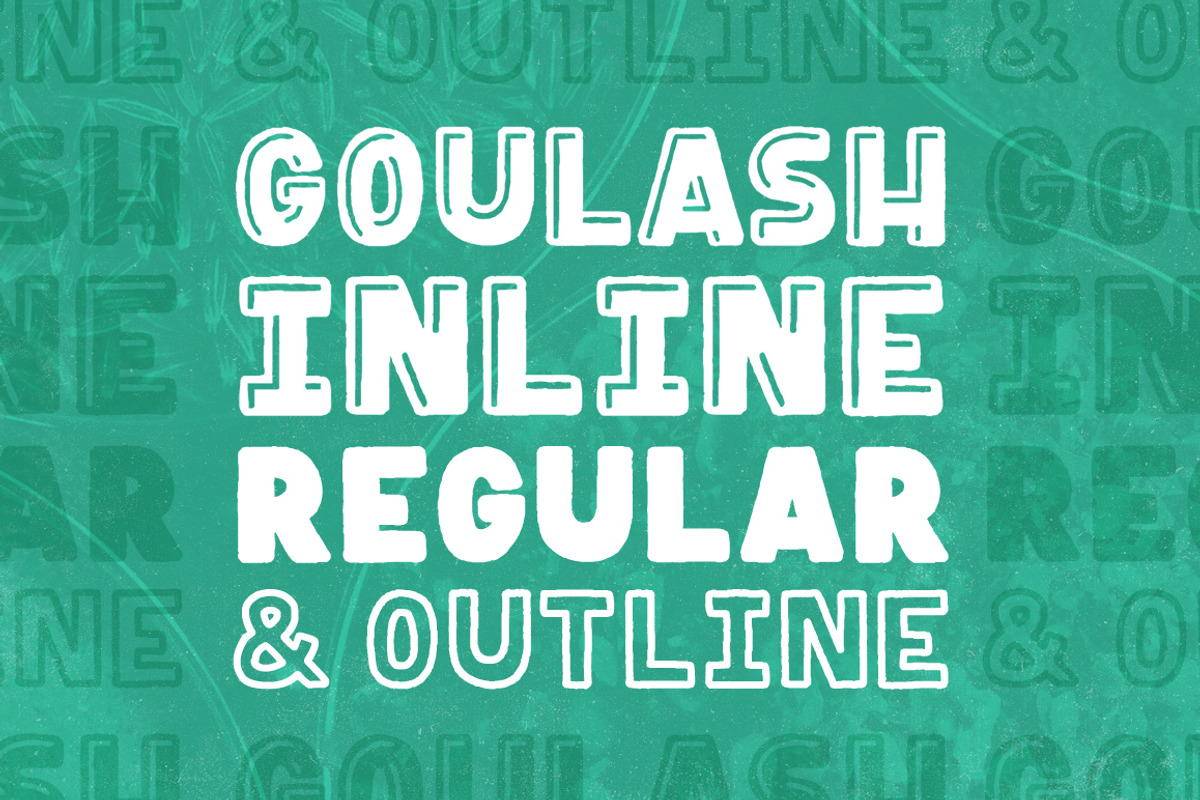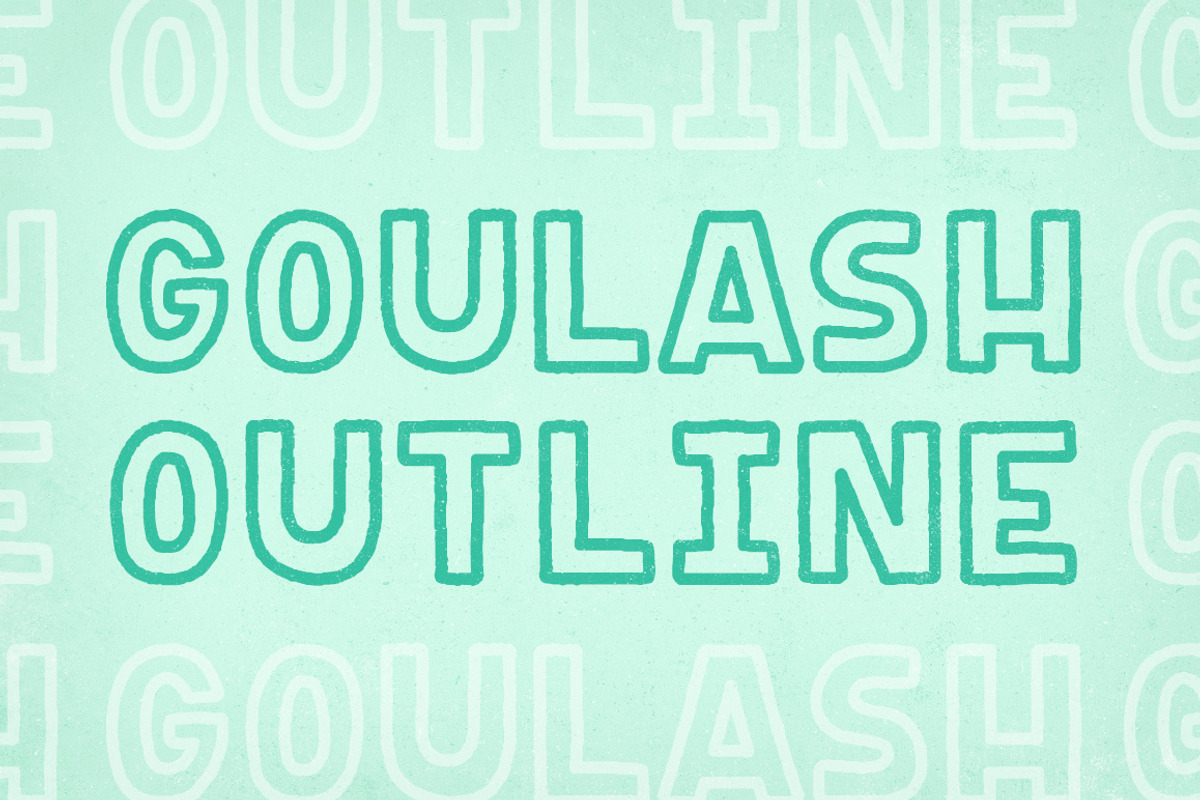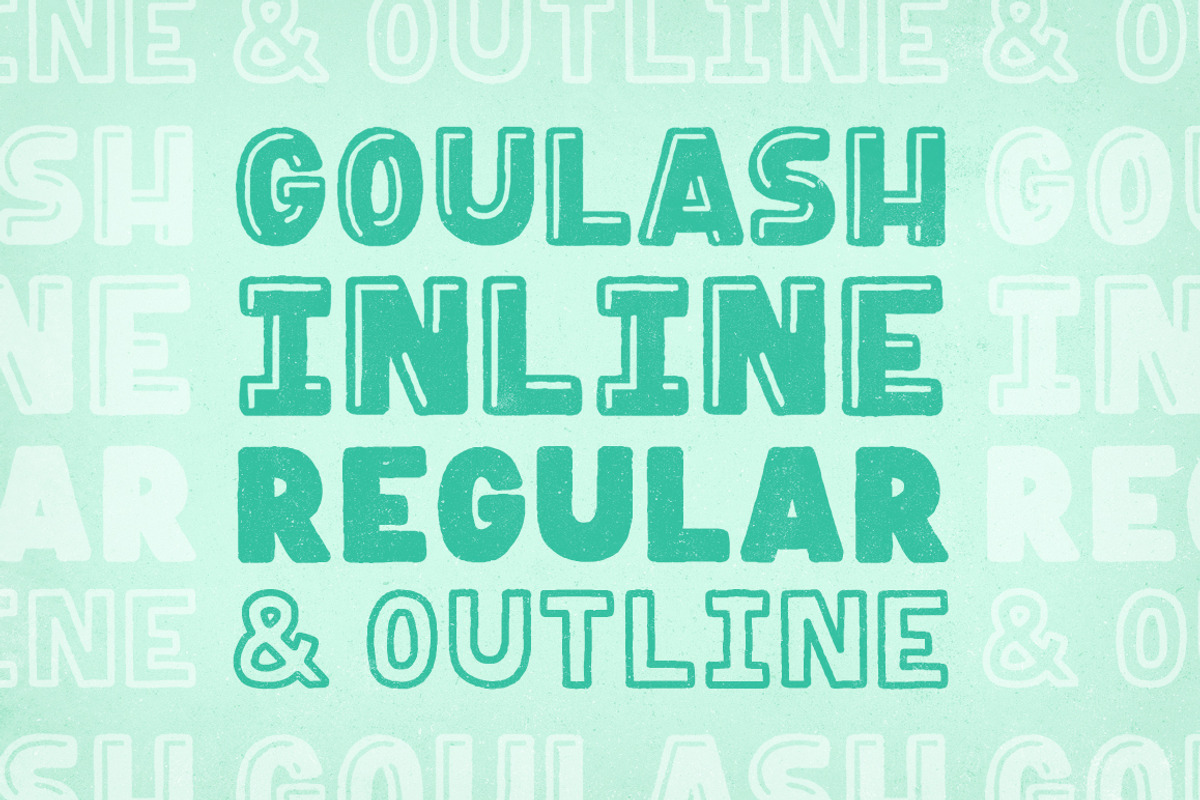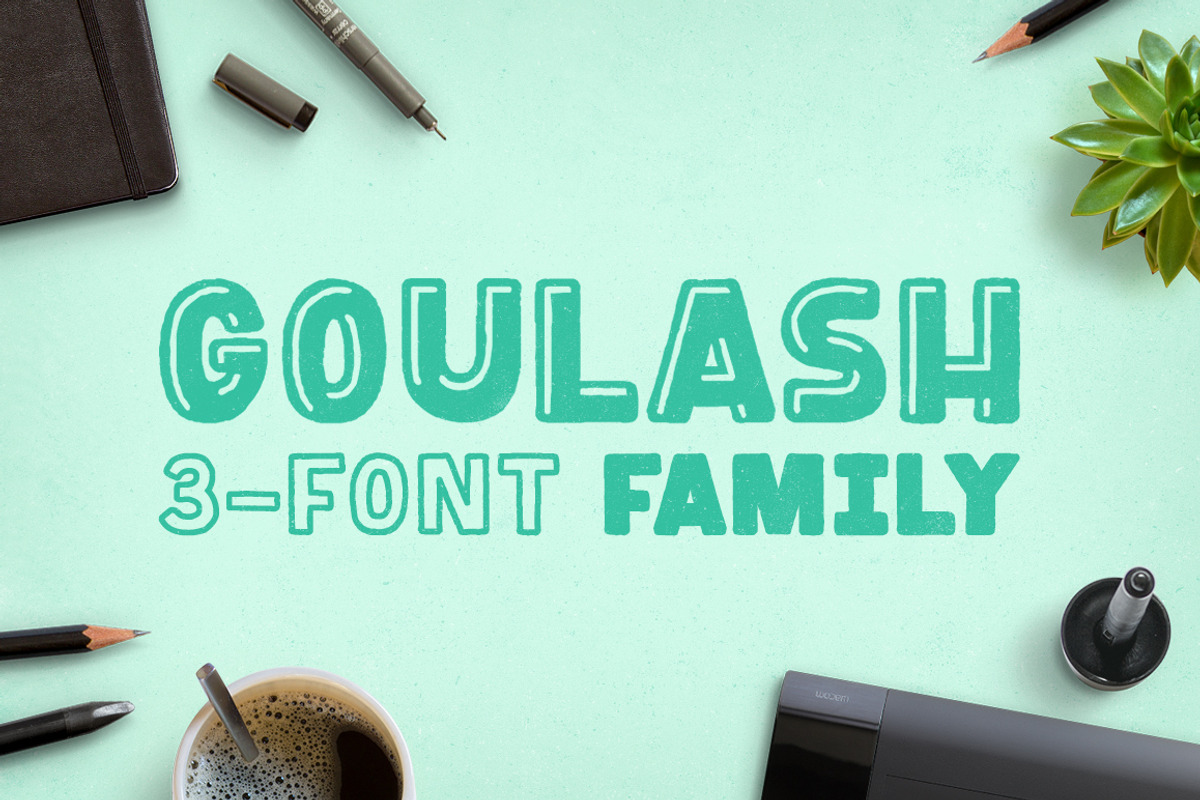
Goulash 3-Font Family
Goulash 3-Font Family by Satchel & Sage is a font selected for branding, posters, packaging, typography.
- Goulash 3-Font Family contains 3 font weights of Goulash — a chunky, uppercase, hand-drawn display typeface that has a thick and friendly vi
Why Goulash 3-Font Family is worth a look
Goulash 3-Font Family by Satchel & Sage fits naturally into Branding, posters, packaging, typography.